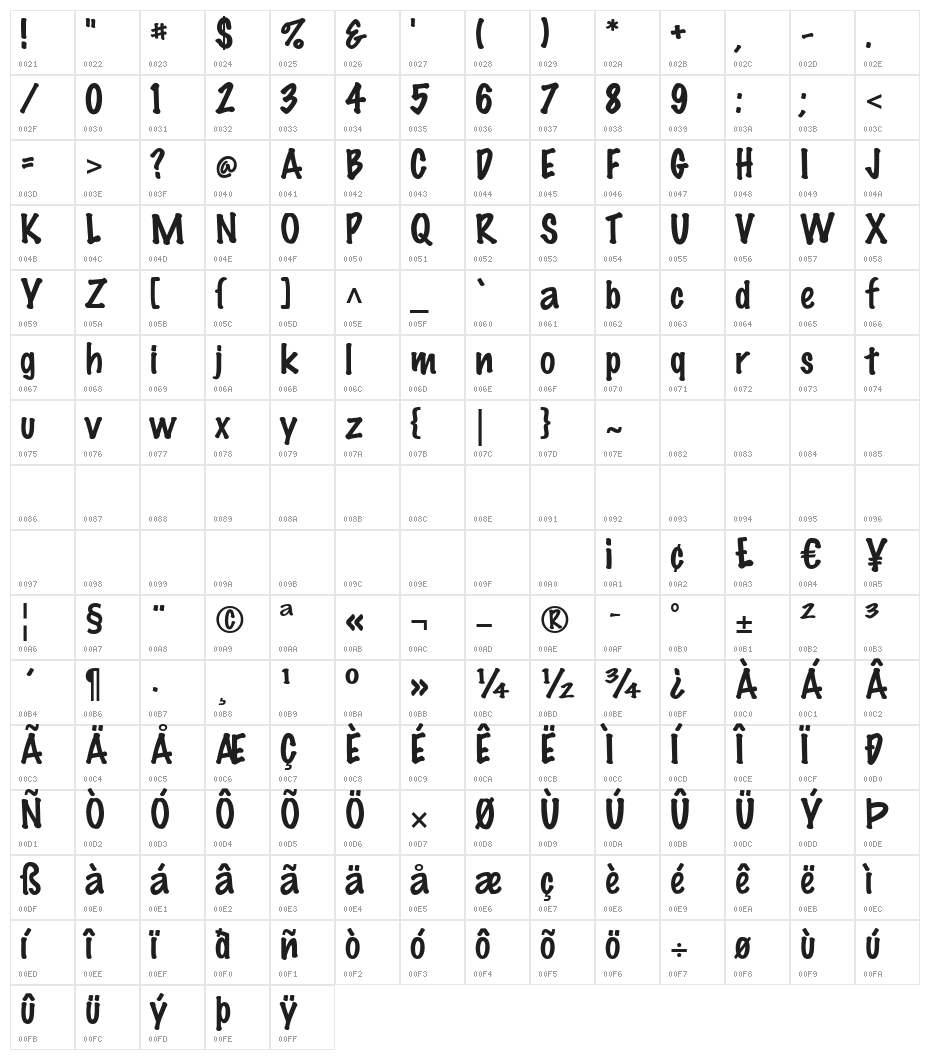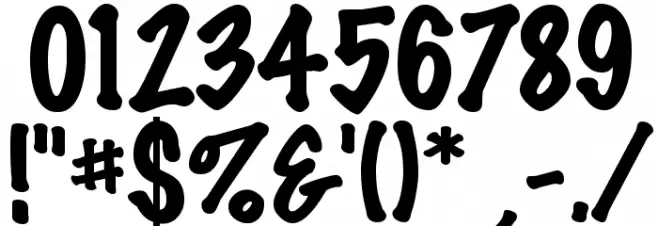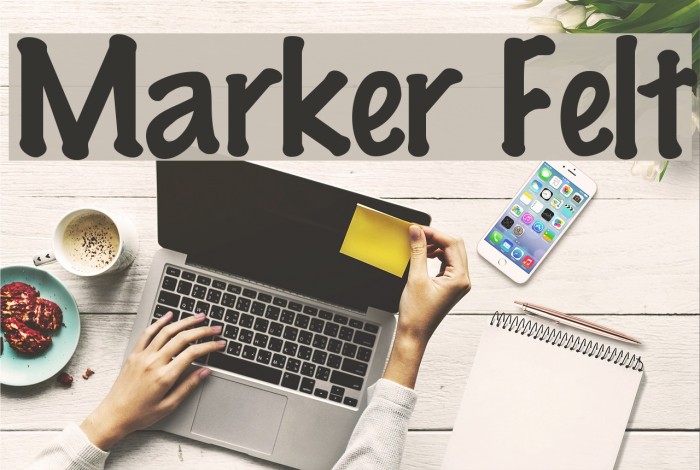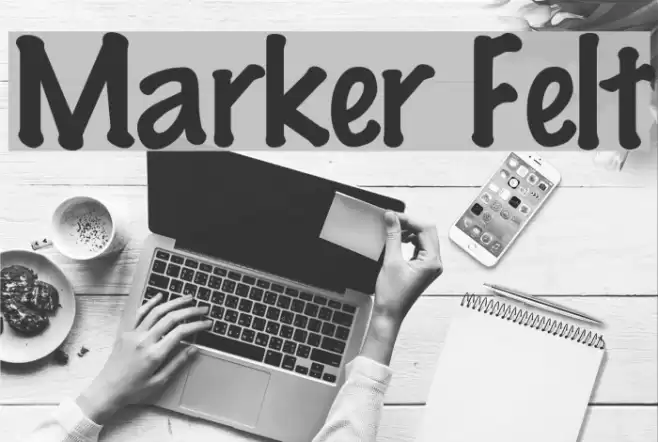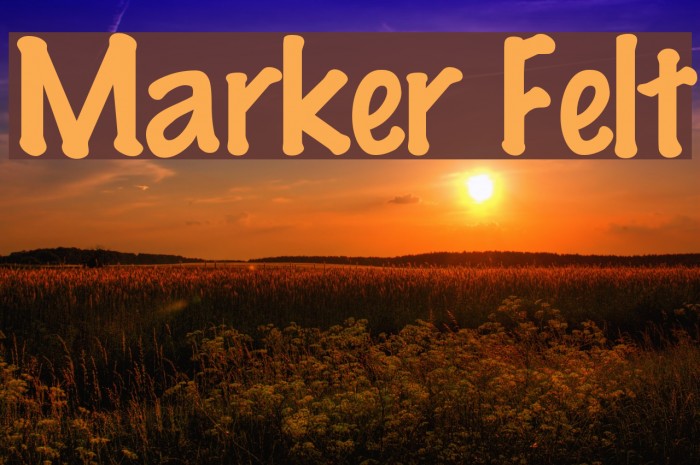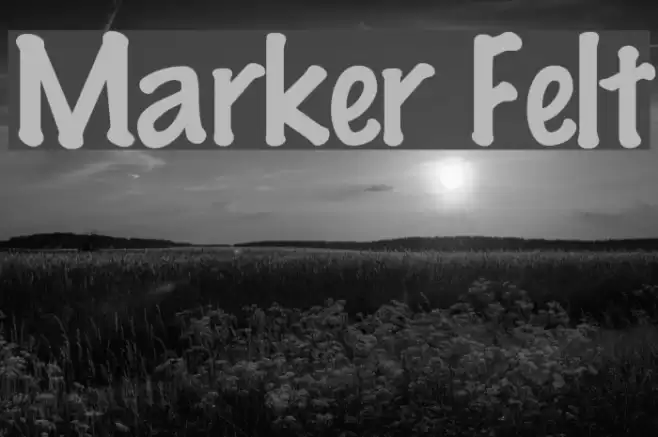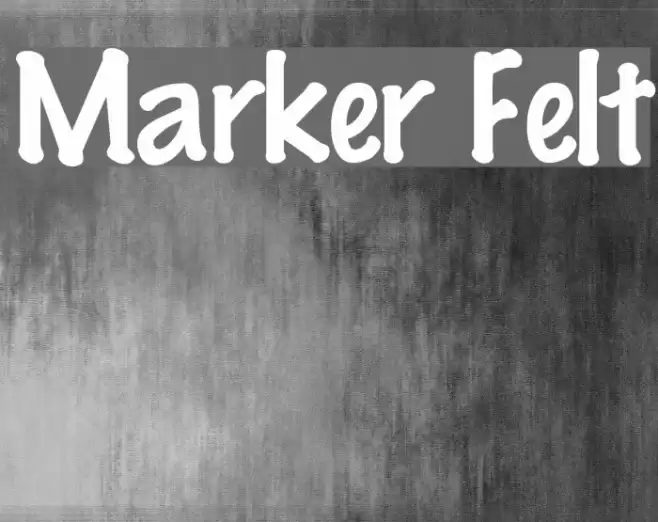
Marker Felt Font
Marker Felt Description
This font exudes a playful and casual vibe, reminiscent of handwriting with a felt-tip marker. The characters are bold and rounded, giving a friendly and approachable appearance. The strokes are consistent in thickness, contributing to a uniform look across all letters and numbers. The uppercase and lowercase letters maintain a cohesive style, with slight variations that add to the handwritten feel. The numerals and special characters follow the same design principles, ensuring readability and consistency. This font is perfect for projects that require a personal touch or an informal aesthetic.
| Overall Style | Casual |
| Use Case | Headlines, Logos, Informal Text |
| Proposed Projects | Ideal for children's books, casual invitations, greeting cards, and playful branding. |